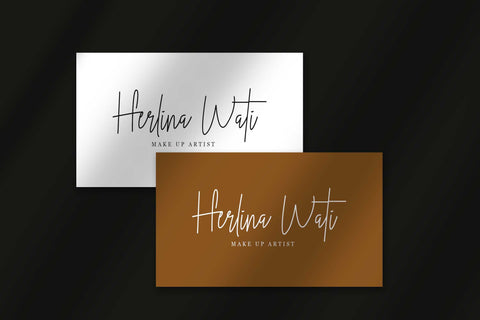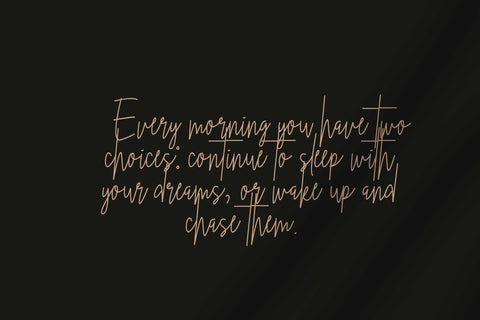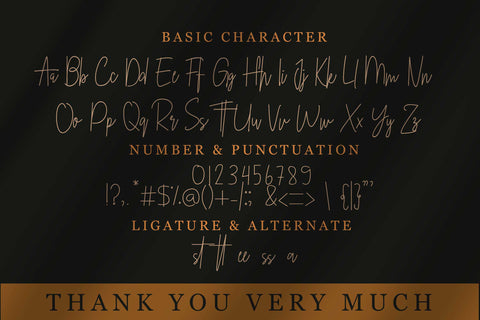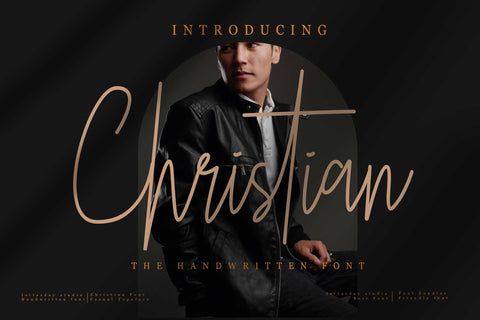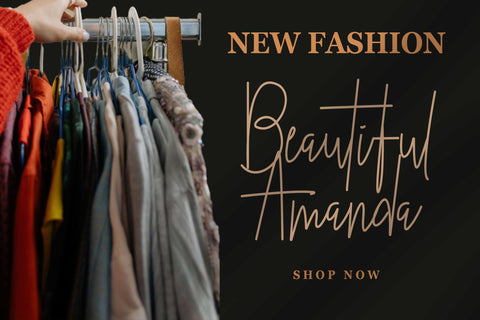
Christian - Handwritten font
Christian is a font with an elegant and premium look. With this romantic and beautiful typeface it adds an aesthetic impression to any design you want to create. It is used to create logos, wedding invitations, social media posts, and your favorite designs. luxurious because there are several ligatures available